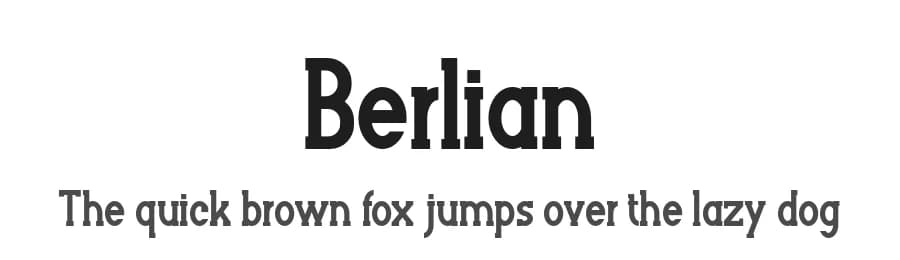
About Berlian Font
Berlian Font is a versatile serif font that works for both headings and body text. Pair it with a contrasting sans-serif or slab serif font to add visual interest and a clear distinction between titles and body copy.
Berlian Font